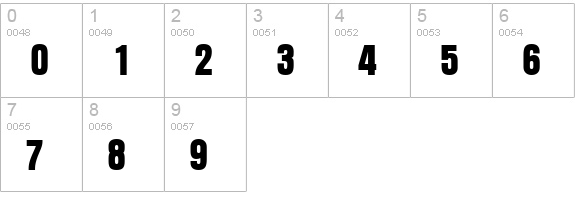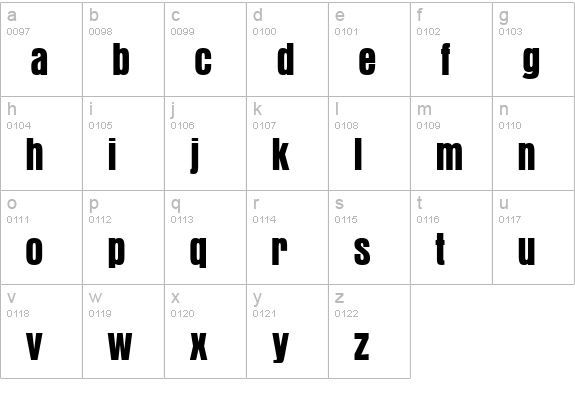
Aura Font Details
Aura font is a stunning display typeface that exudes elegance and sophistication. With its sleek lines and modern aesthetic, Aura is perfect for adding a touch of luxury to any design project. The font features a unique blend of sharp angles and soft curves, creating a harmonious balance that is visually appealing. Whether you're designing a logo, poster, or website, Aura will make your text stand out with its captivating presence. Best of all, Aura font is available for free download at FontsMarket.com. This means you can easily access this premium font without breaking the bank. Don't miss out on the opportunity to elevate your designs with the exquisite Aura font - download it today and take your projects to the next level!